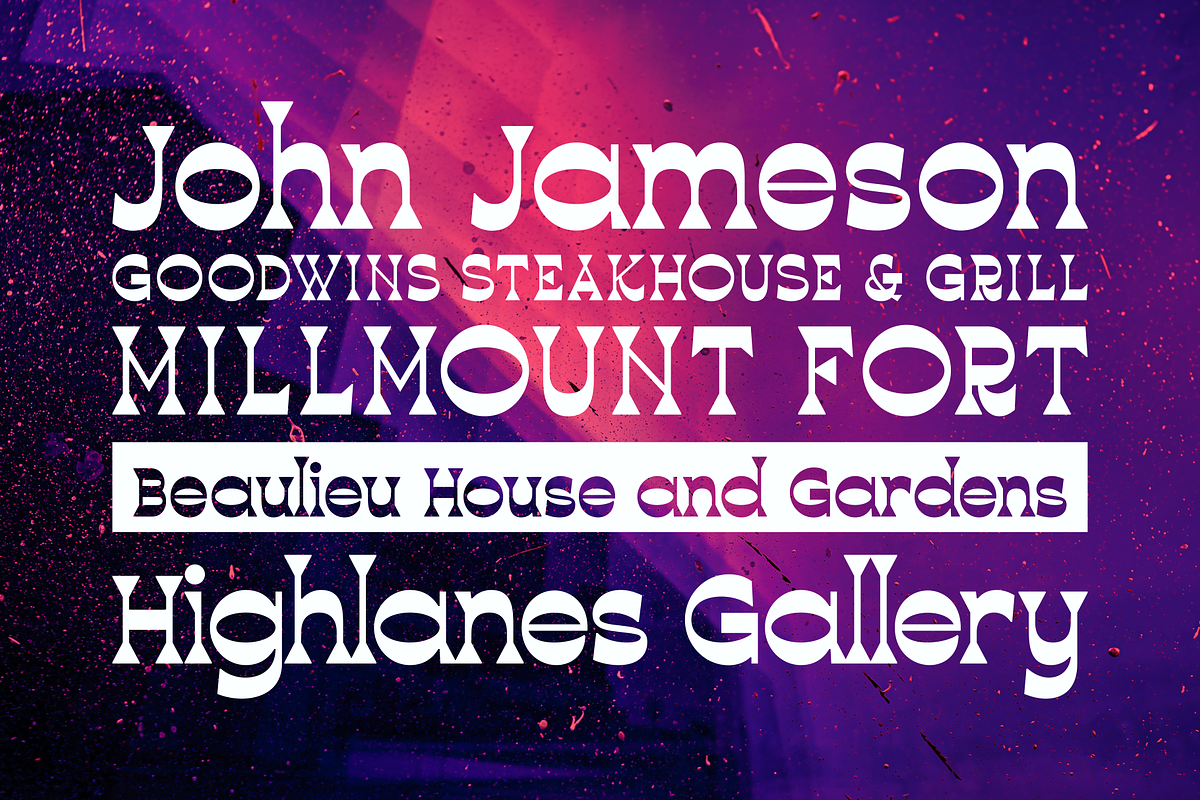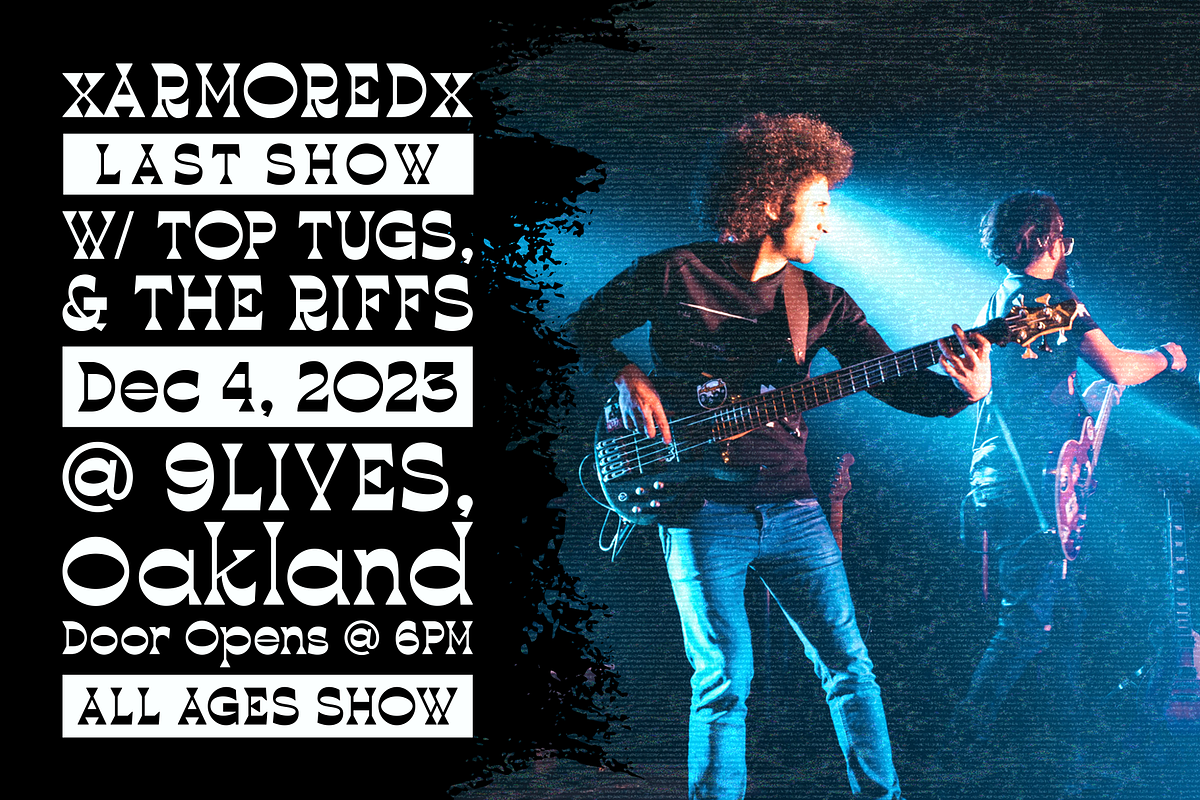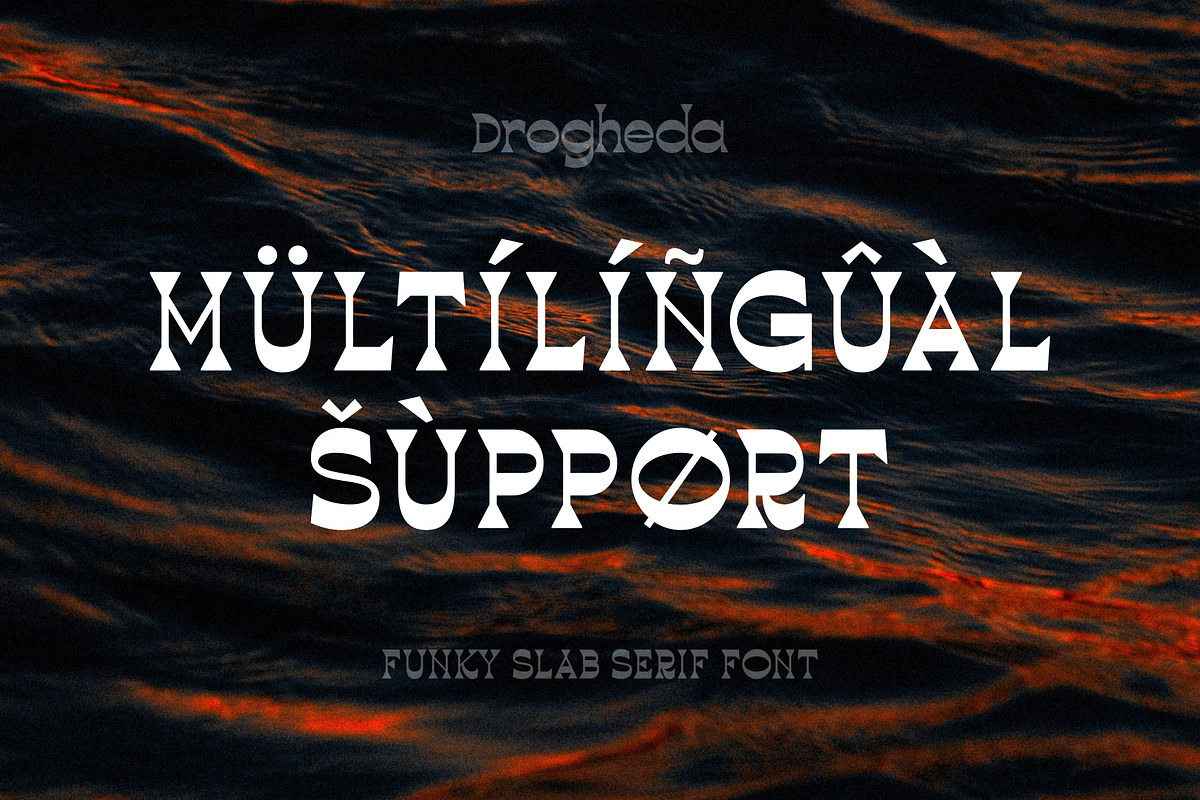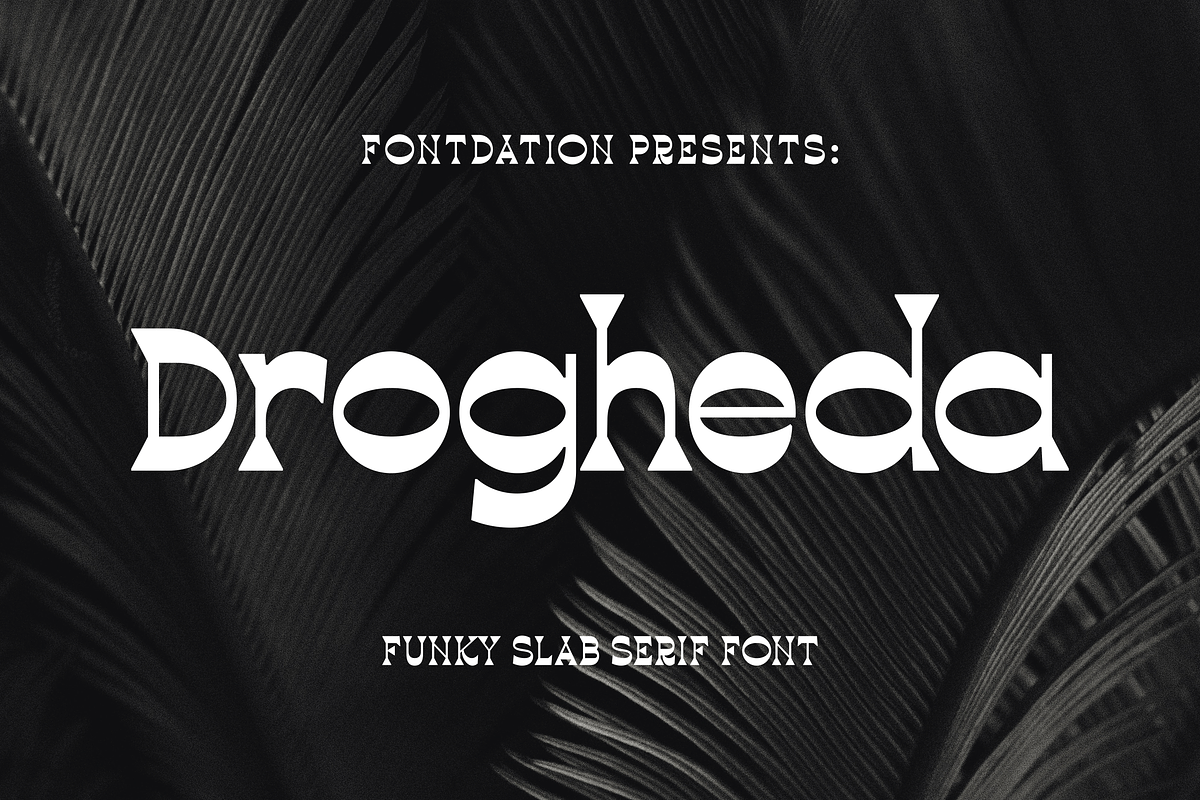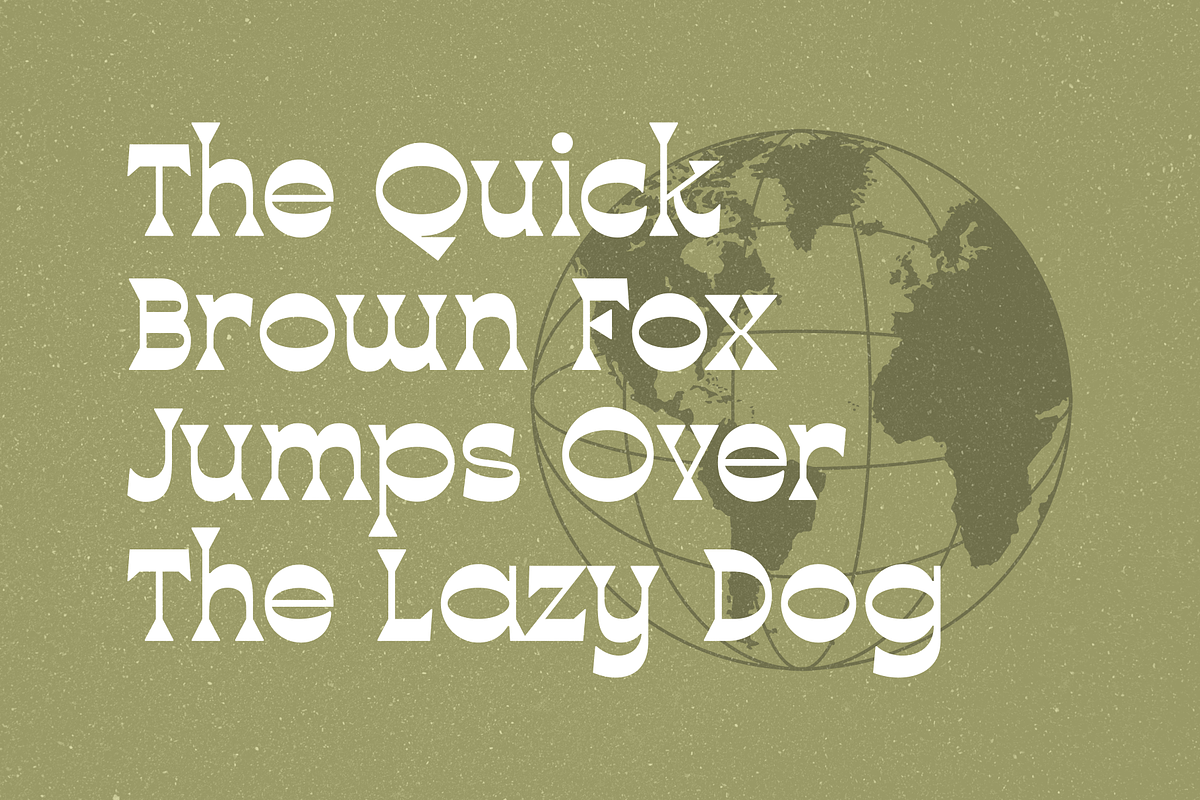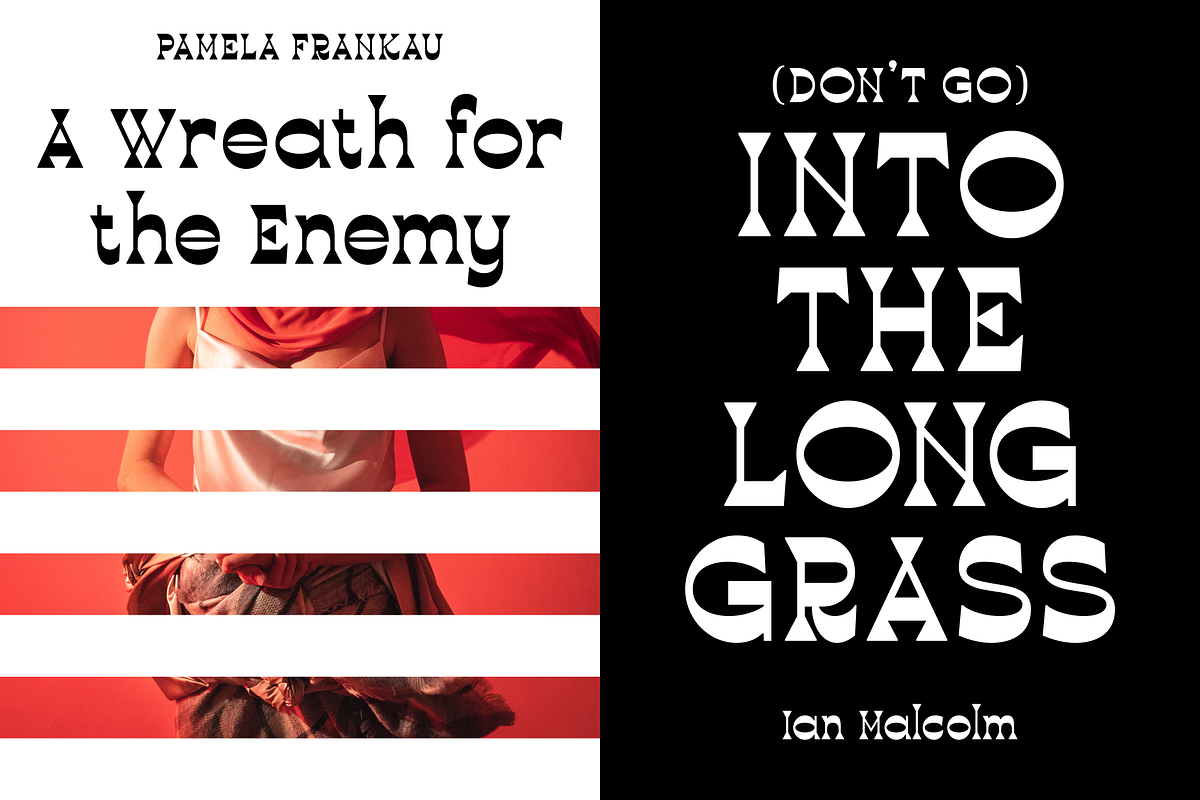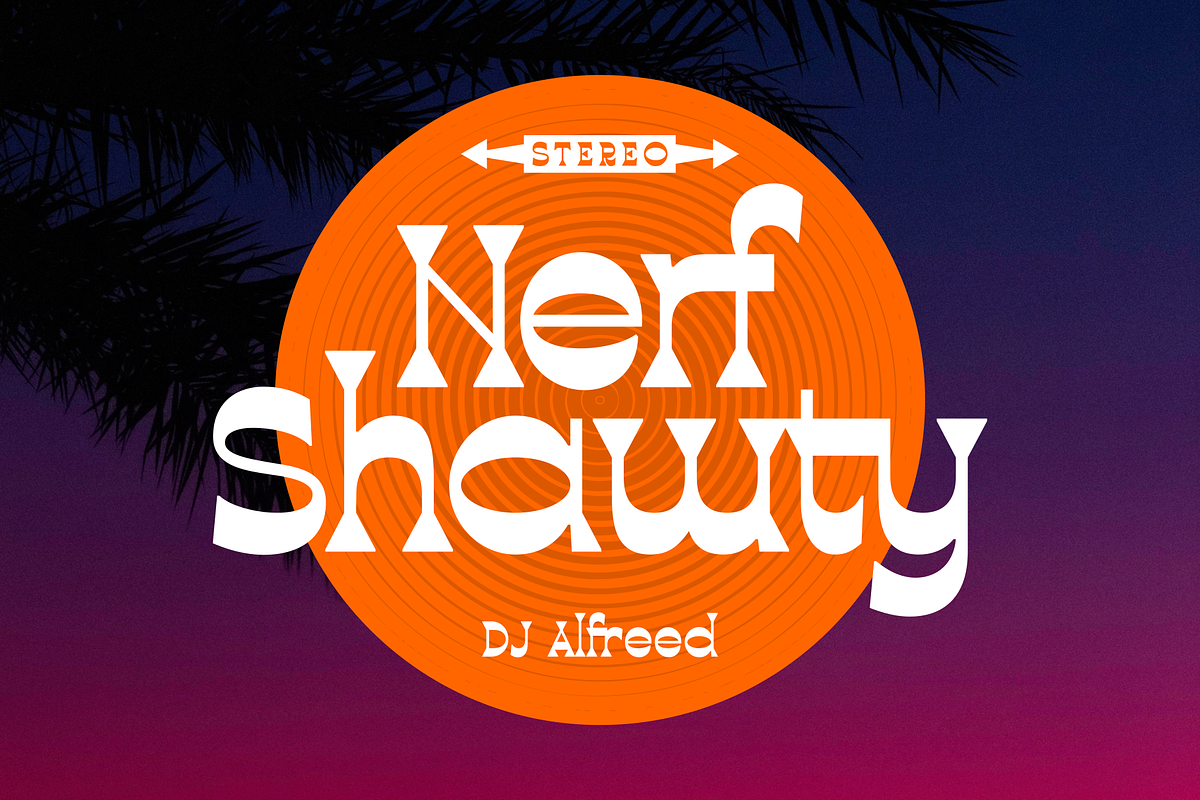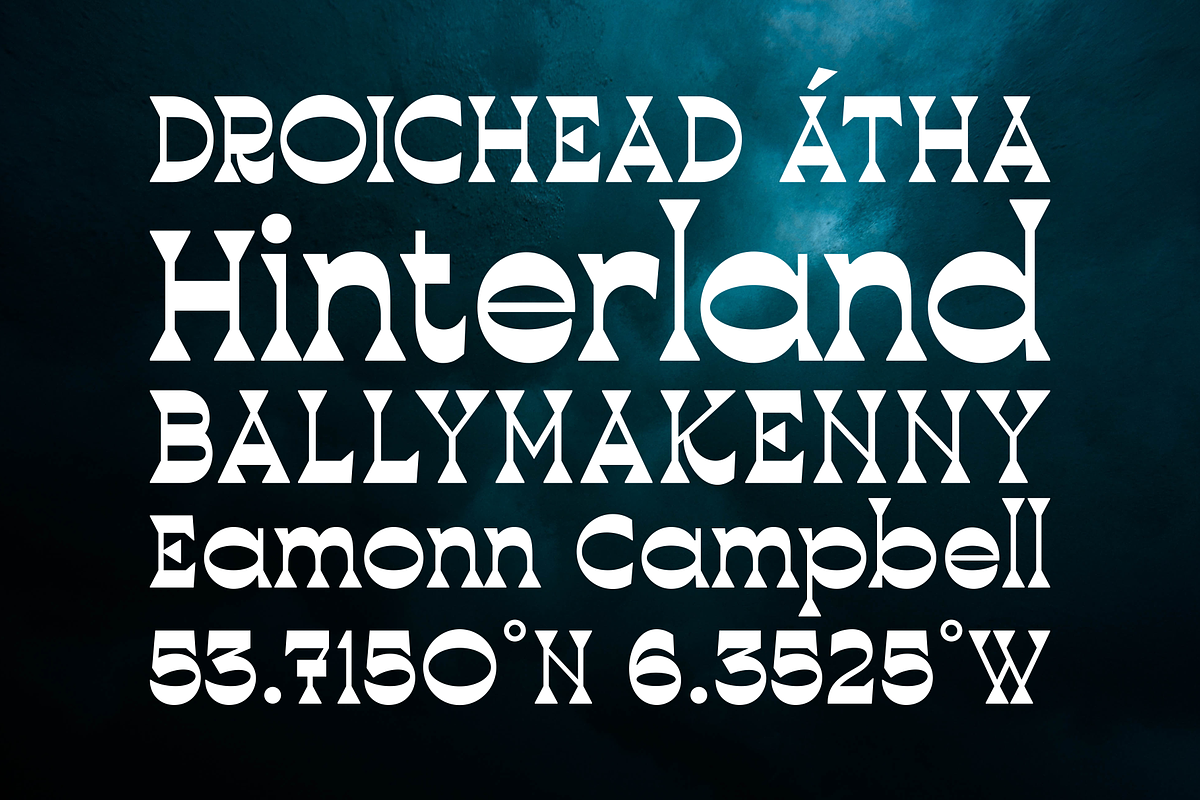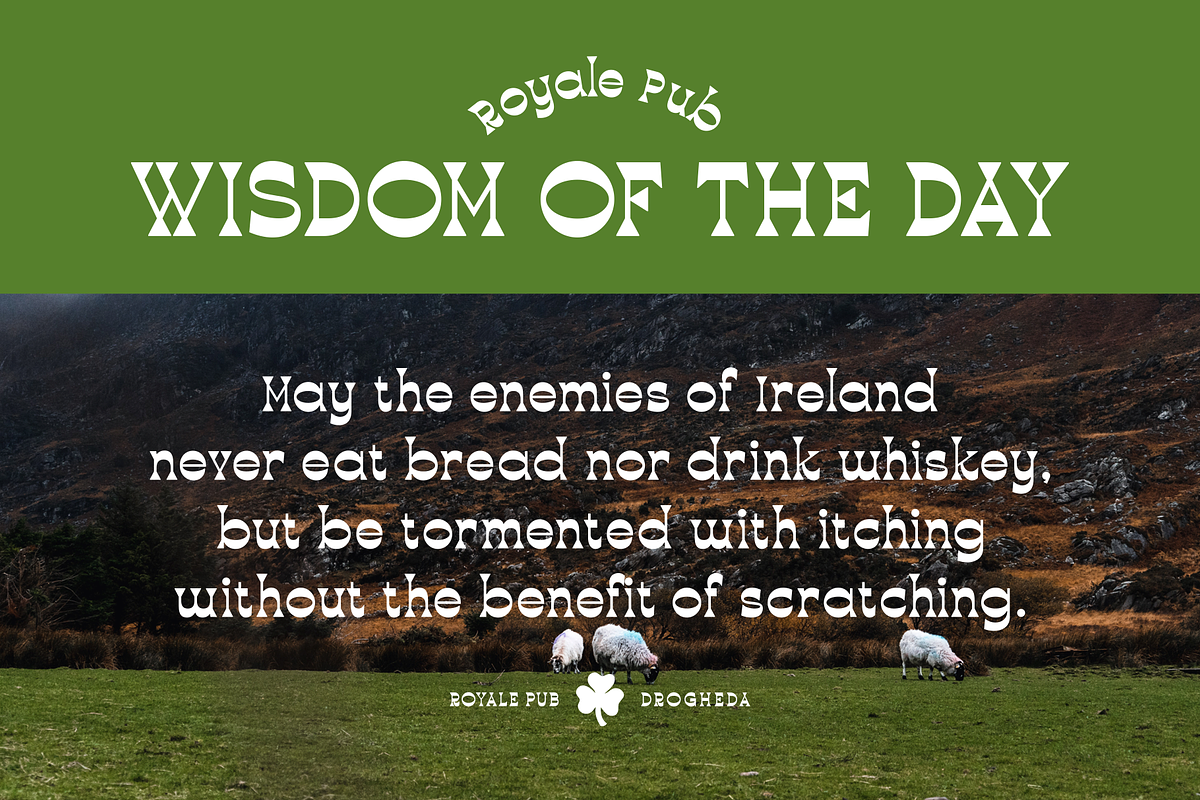
Drogheda | Funky Slab Serif Font
Introducing our latest font release: Drogheda. A reversed-contrast slab serif with a strong but flexible personality. Crafted with high attention to the details, gives you the best designing experience. Suits best for poster designs, headlines, quote writings, etc. Available in two formats: OTF and TTF.